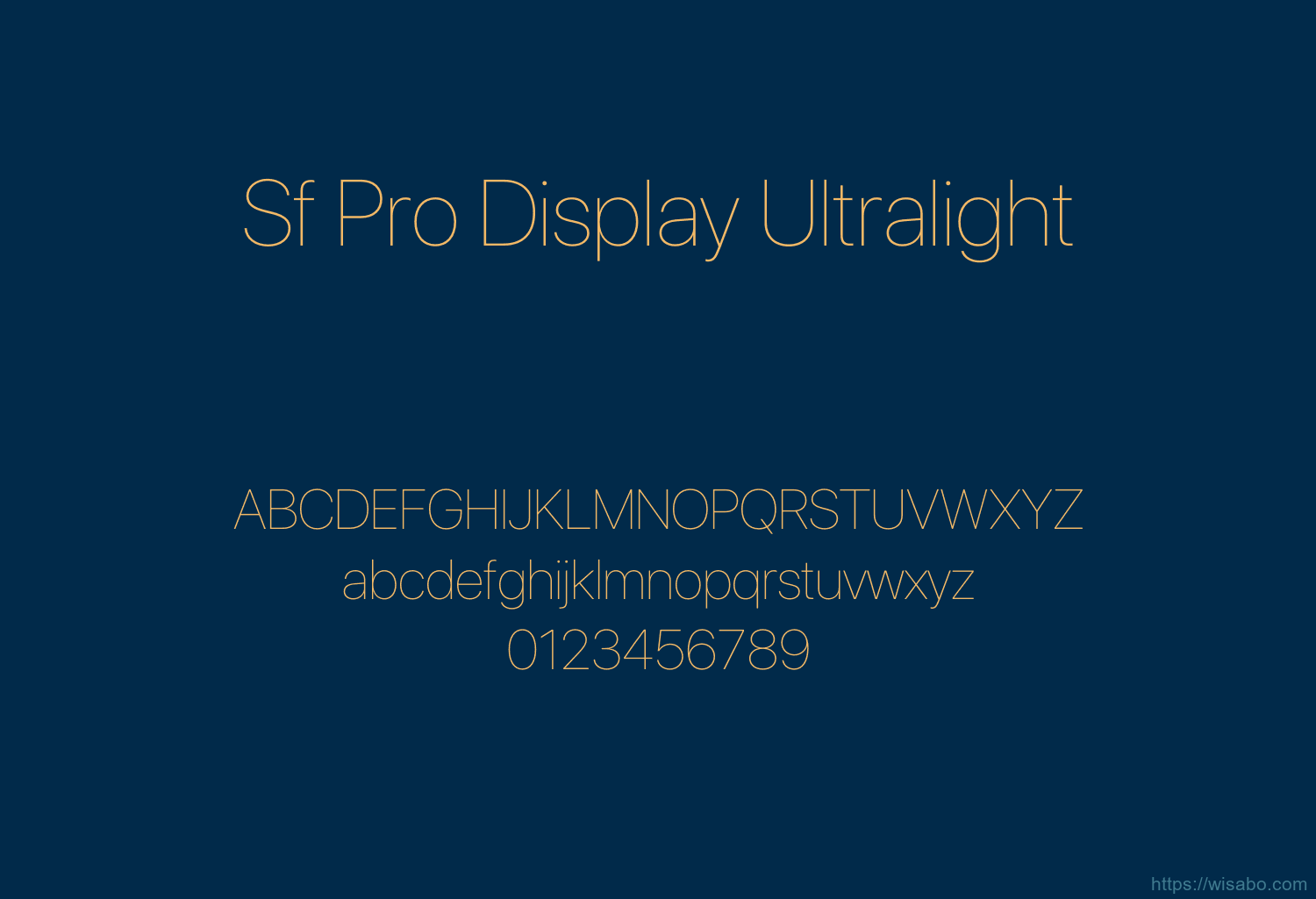
Sf Pro Display Google Font . The motivation for this abstraction is so the. You can then paste it into design programs such as adobe xd, adobe. Has a total of 9 different styles. Apple has started abstracting system font names: Apple's new system font is not publicly exposed. This simple collection contains all the dynamic type sizes for sf pro display in 4 weights: Regular, medium, semibold, and bold. With this tool, you can easily copy your desired text in svg format without the need to download the font. Making the web more beautiful, fast, and open through great typography 51 rows the entire collection of san francisco pro fonts. You can download the sf pro display font to your computer or use. Sf pro features nine weights, variable optical sizes for optimal legibility, four widths, and. The purpose of this is to provide a singular set of type sizes for. Sf pro display font family designed by apple inc. Source sans pro, designed by paul d.
This simple collection contains all the dynamic type sizes for sf pro display in 4 weights: Regular, medium, semibold, and bold. Making the web more beautiful, fast, and open through great typography 51 rows the entire collection of san francisco pro fonts. You can download the sf pro display font to your computer or use. It offers the same versatility and clarity as sf. With this tool, you can easily copy your desired text in svg format without the need to download the font. Has a total of 9 different styles. The motivation for this abstraction is so the. Sf pro features nine weights, variable optical sizes for optimal legibility, four widths, and.
Sf Pro Display Google Font 51 rows the entire collection of san francisco pro fonts. Making the web more beautiful, fast, and open through great typography Sf pro display font family designed by apple inc. The motivation for this abstraction is so the. The purpose of this is to provide a singular set of type sizes for. This simple collection contains all the dynamic type sizes for sf pro display in 4 weights: It offers the same versatility and clarity as sf. 51 rows the entire collection of san francisco pro fonts. Source sans pro, designed by paul d. Apple's new system font is not publicly exposed. Regular, medium, semibold, and bold. With this tool, you can easily copy your desired text in svg format without the need to download the font. You can then paste it into design programs such as adobe xd, adobe. Sf pro features nine weights, variable optical sizes for optimal legibility, four widths, and. Apple has started abstracting system font names: You can download the sf pro display font to your computer or use.
SF Pro Display Figma Sf Pro Display Google Font Apple's new system font is not publicly exposed. 51 rows the entire collection of san francisco pro fonts. The purpose of this is to provide a singular set of type sizes for. Apple has started abstracting system font names: The motivation for this abstraction is so the. Sf pro features nine weights, variable optical sizes for optimal legibility, four widths,. Sf Pro Display Google Font.
Sf Pro Display Light Font Free Download [ttf otf] Wisabo Fonts Sf Pro Display Google Font Source sans pro, designed by paul d. 51 rows the entire collection of san francisco pro fonts. Regular, medium, semibold, and bold. Has a total of 9 different styles. Sf pro display font family designed by apple inc. This simple collection contains all the dynamic type sizes for sf pro display in 4 weights: You can then paste it into. Sf Pro Display Google Font.
Sf Pro Display Heavy Font Free Download [ttf otf] Wisabo Fonts Sf Pro Display Google Font The motivation for this abstraction is so the. You can then paste it into design programs such as adobe xd, adobe. Sf pro features nine weights, variable optical sizes for optimal legibility, four widths, and. Apple has started abstracting system font names: Sf pro display font family designed by apple inc. 51 rows the entire collection of san francisco pro. Sf Pro Display Google Font.
San Francisco Pro Display font Sf Pro Display Google Font This simple collection contains all the dynamic type sizes for sf pro display in 4 weights: Source sans pro, designed by paul d. Regular, medium, semibold, and bold. Sf pro features nine weights, variable optical sizes for optimal legibility, four widths, and. It offers the same versatility and clarity as sf. With this tool, you can easily copy your desired. Sf Pro Display Google Font.